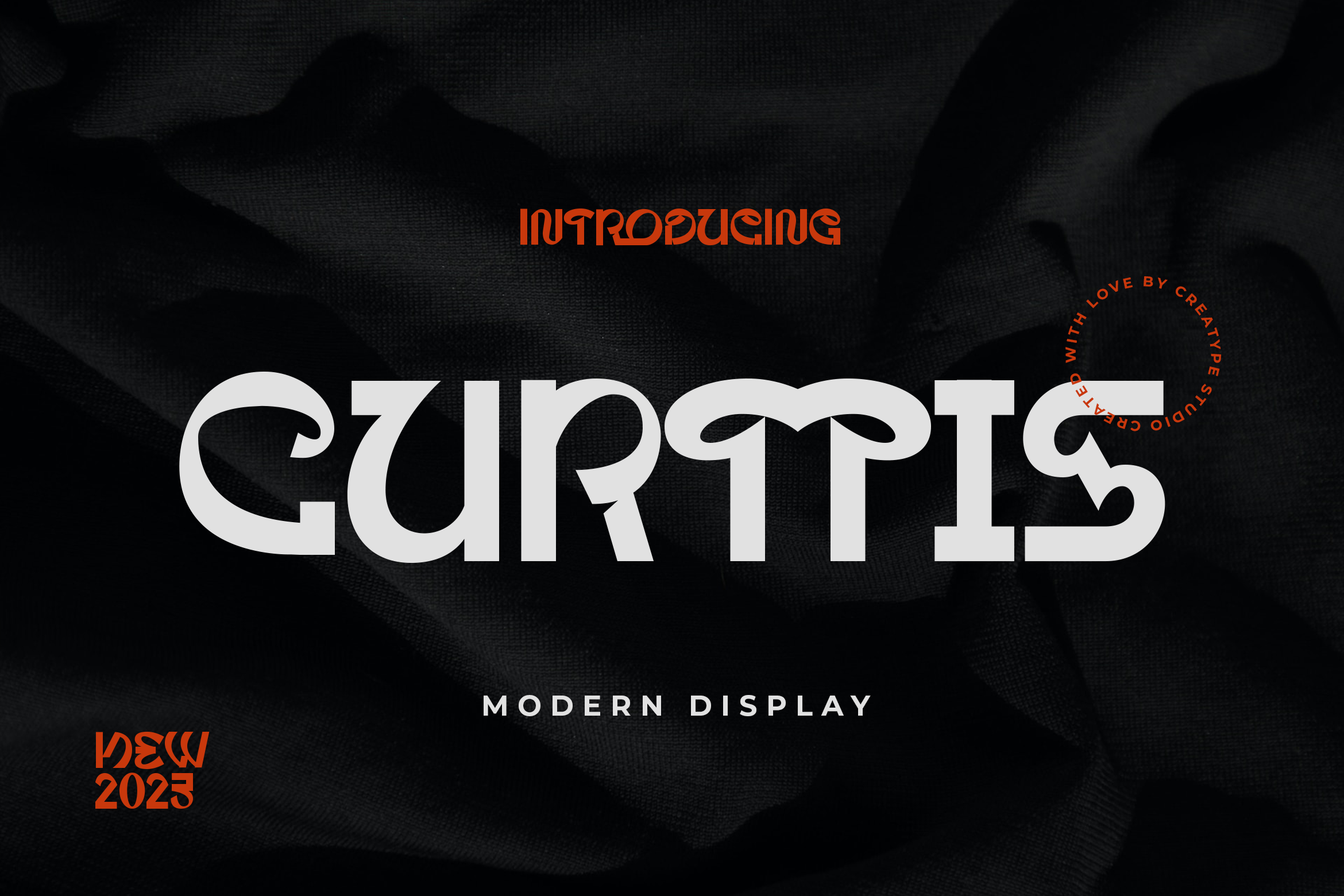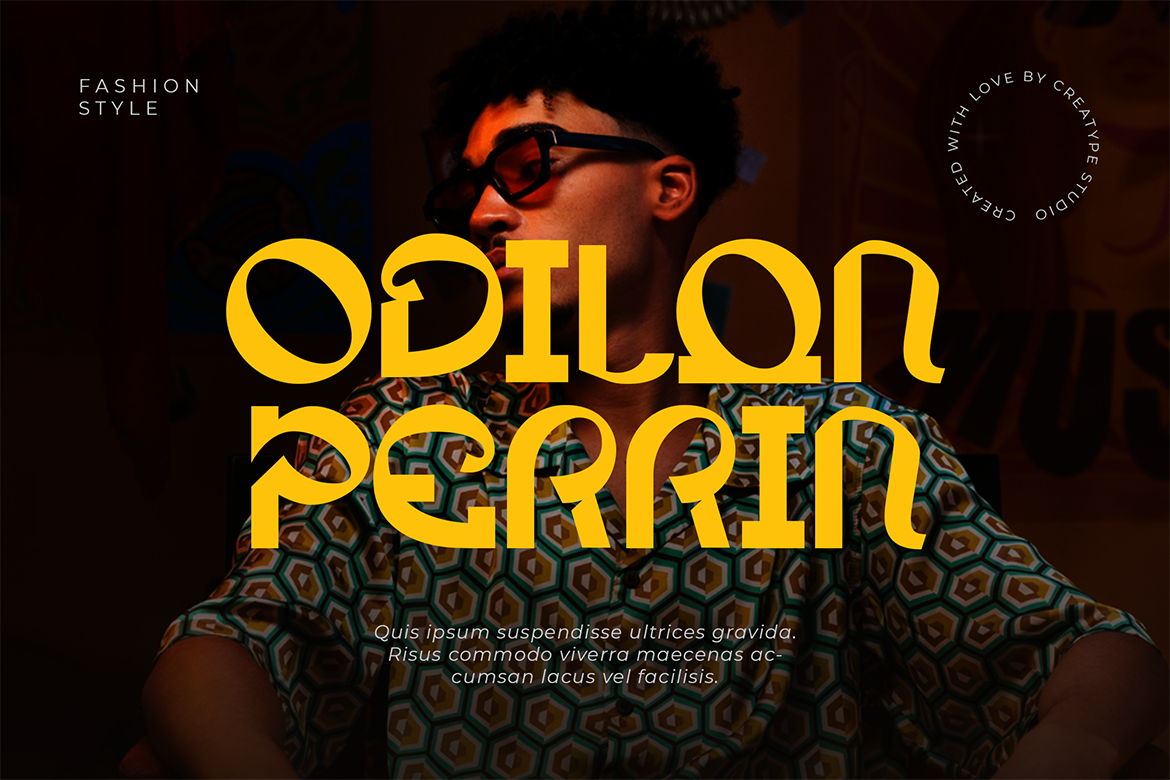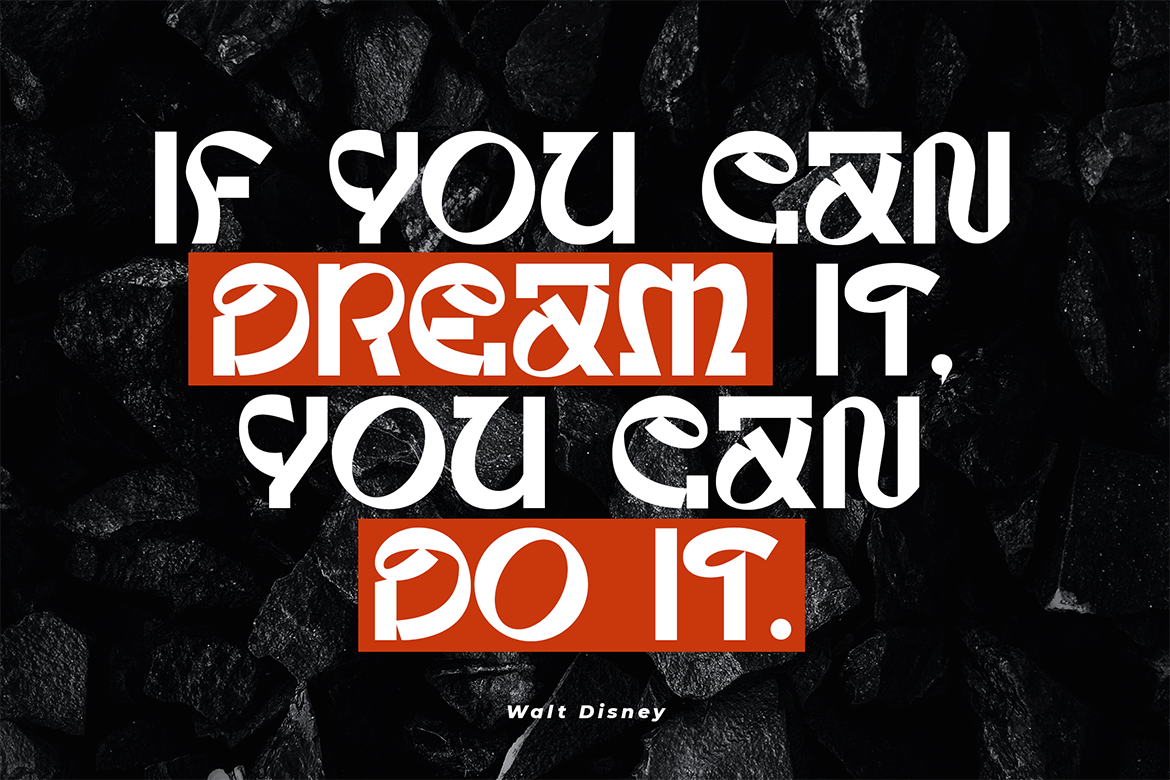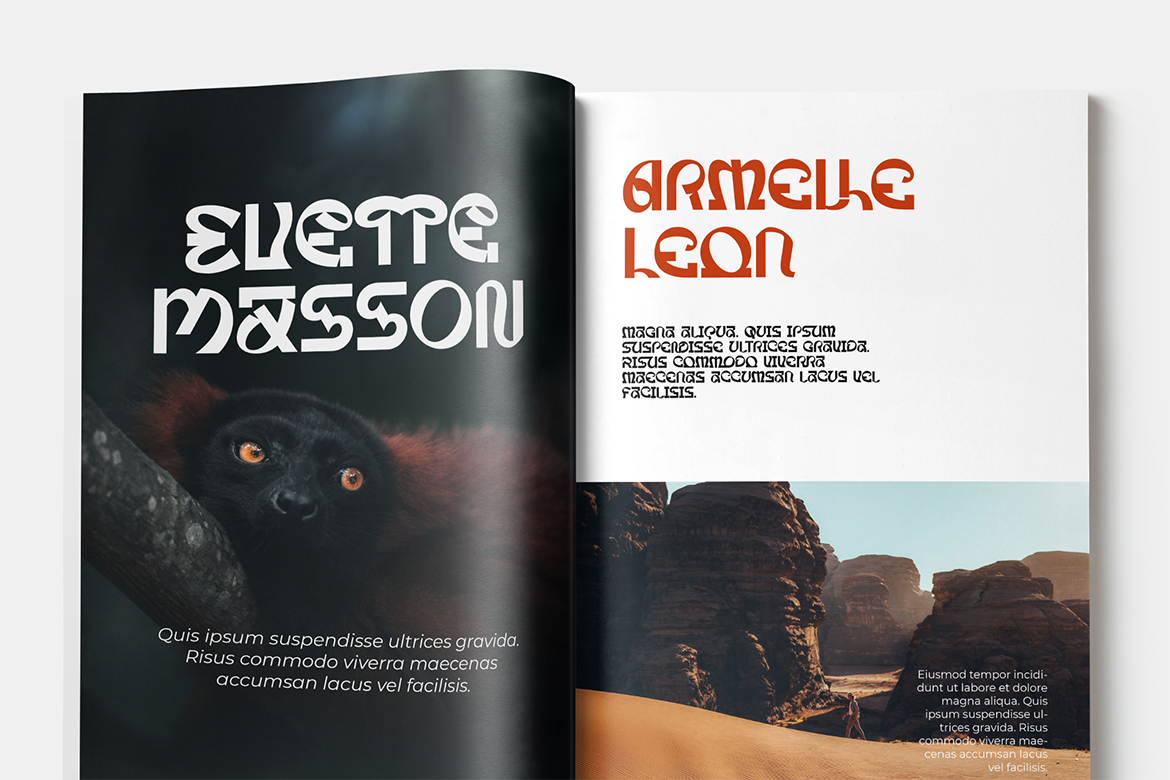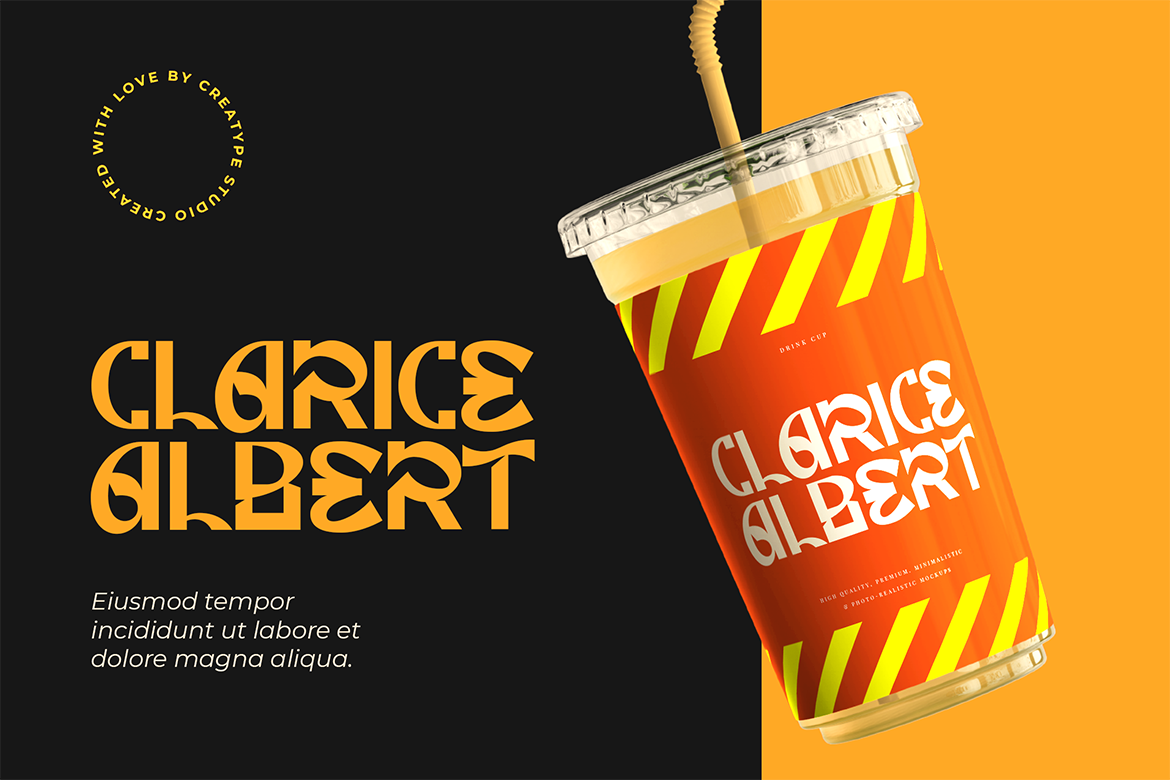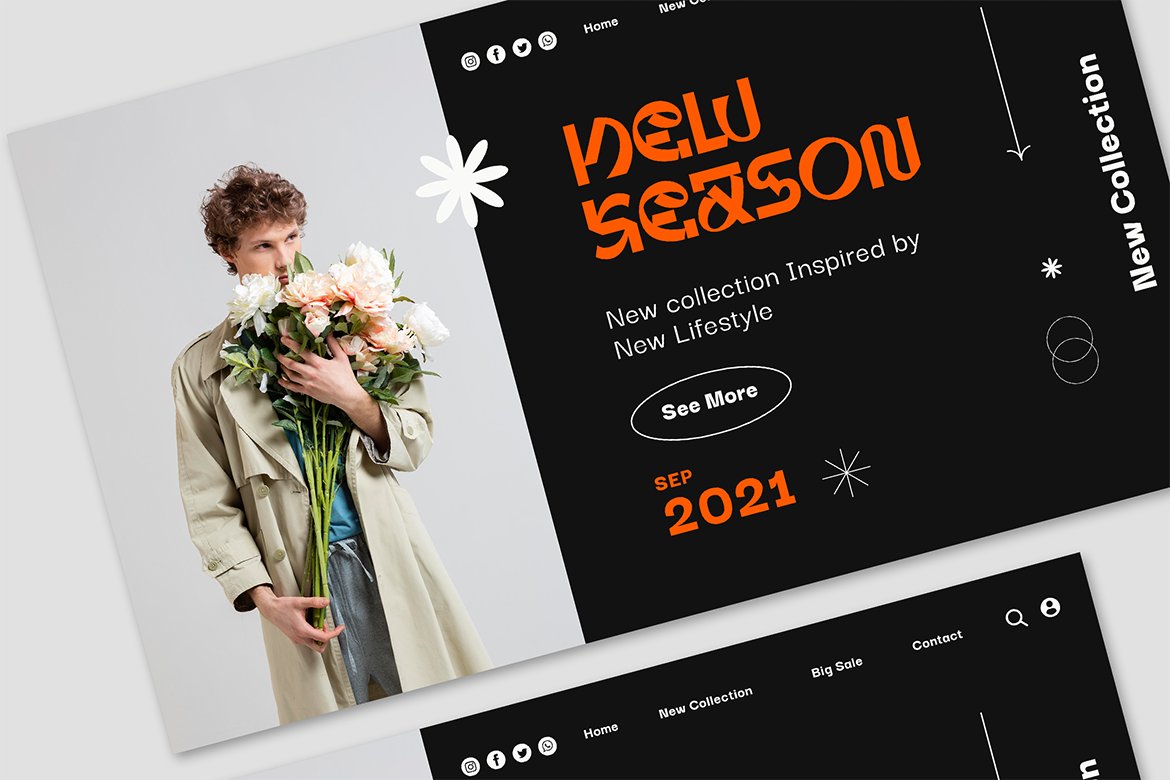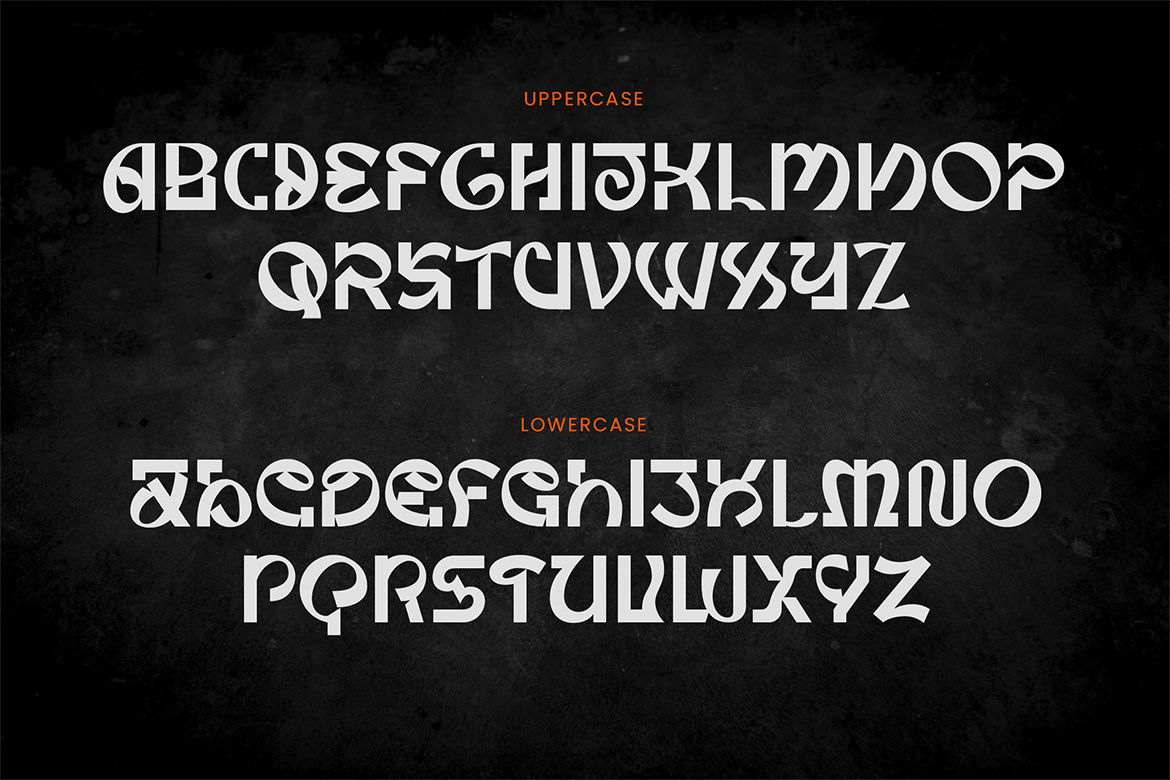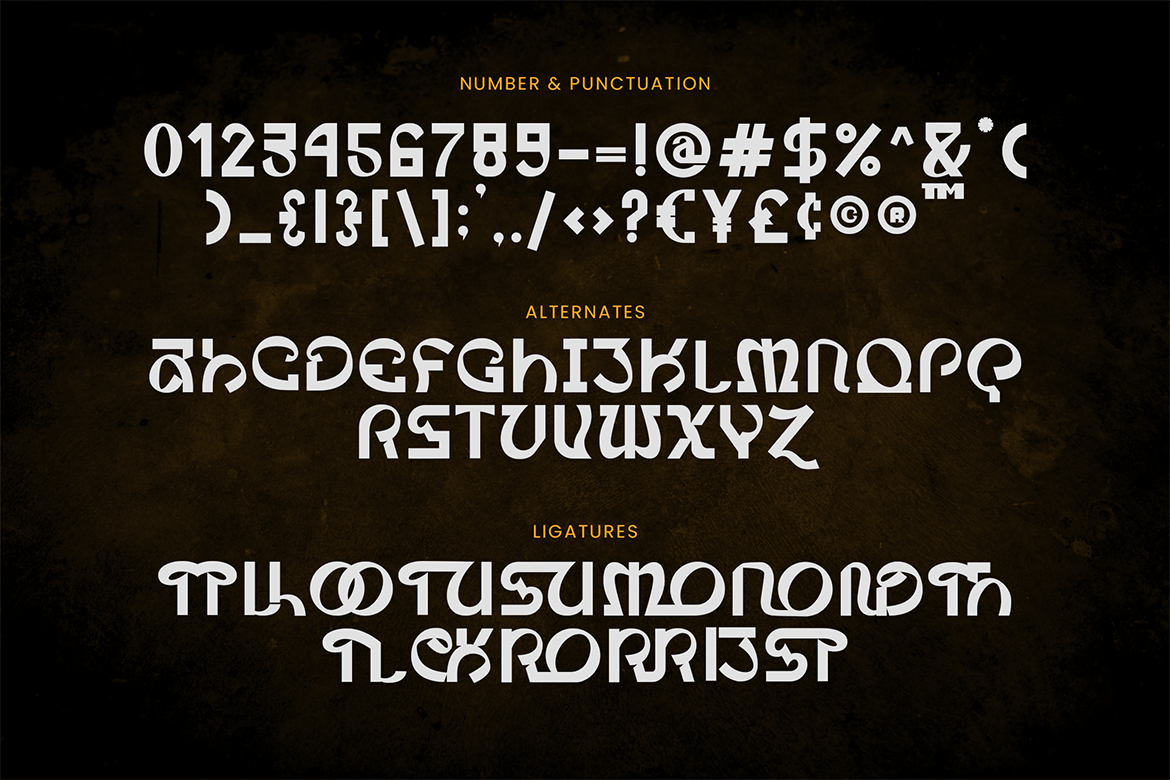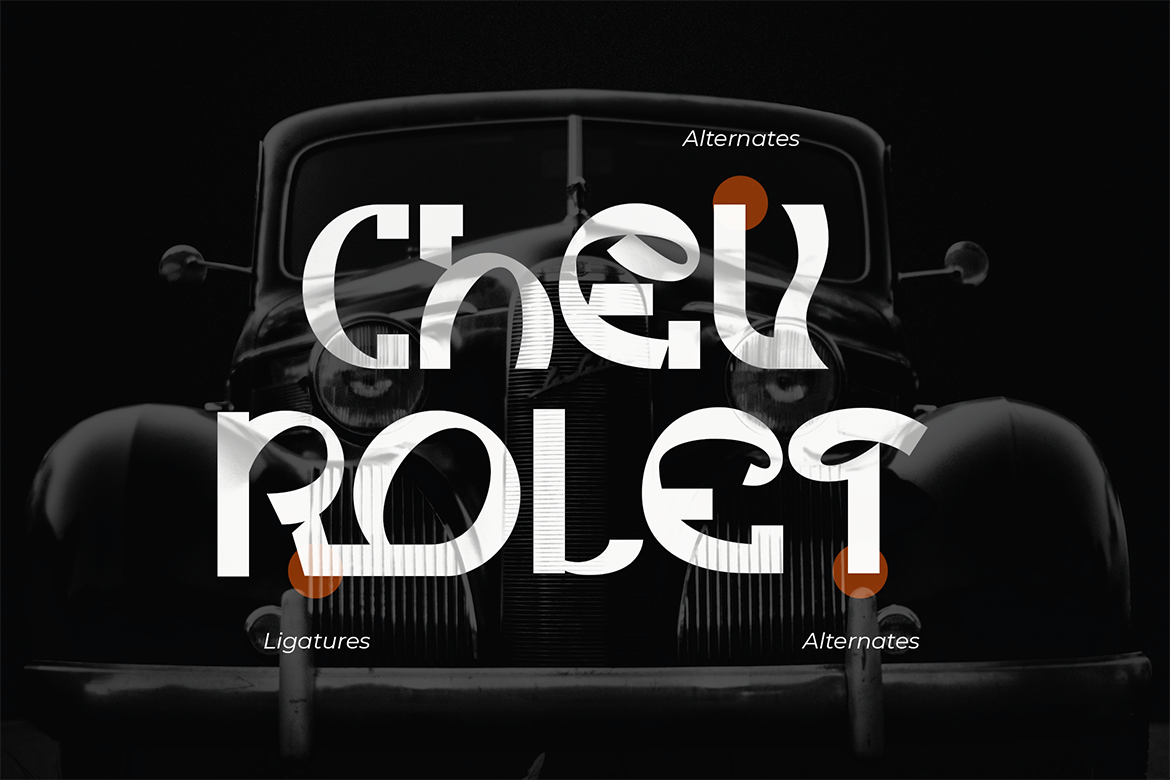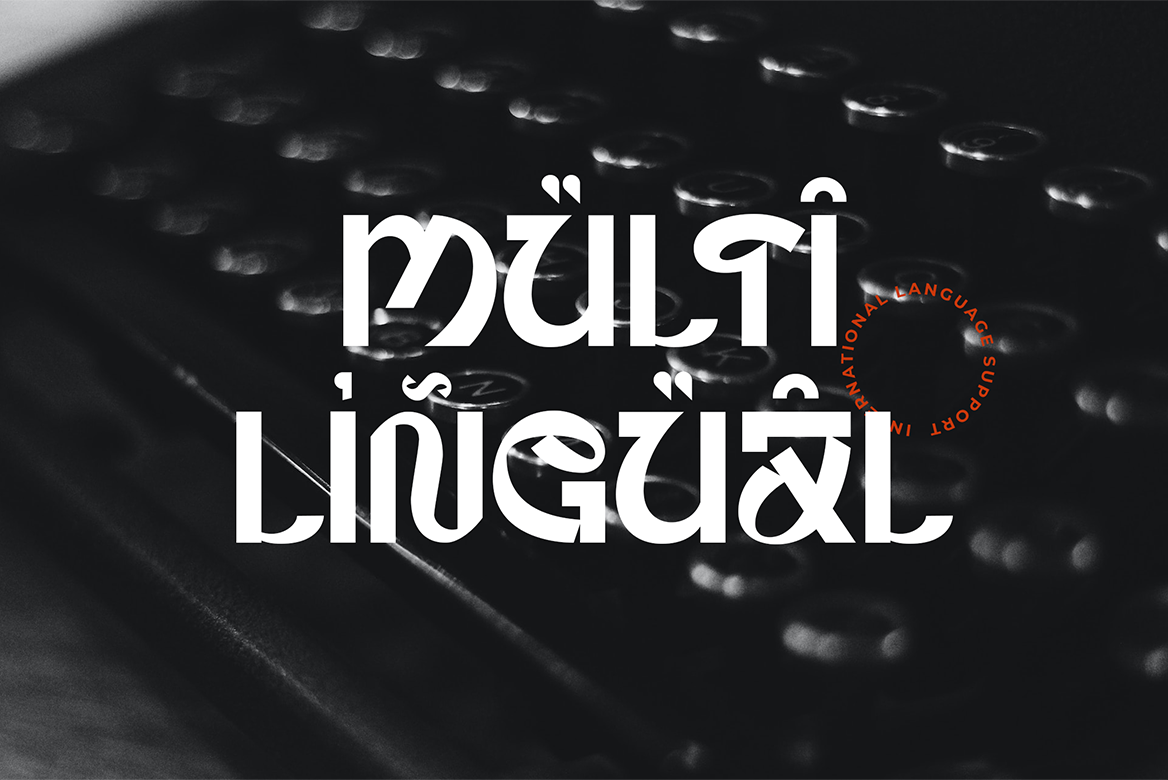
Curtis Modern Display
Curtis, the modern display typeface that is bold so it showcases the quirky charm of your brand with a powerful presence.
Curtis is perfect for branding projects, logos, wedding designs, social media posts, advertisements, product packaging, product designs, label, photography, watermark, invitation, stationery, and any projects that need handwriting taste.